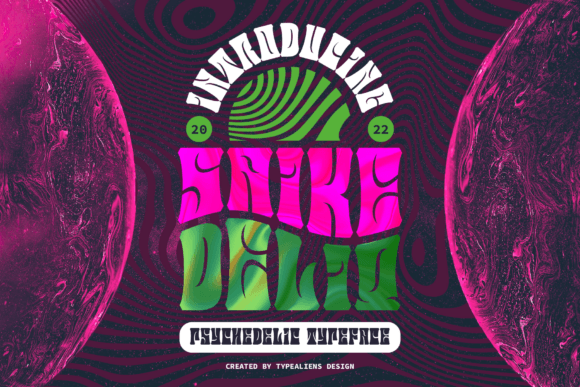
Stand out from the crowd with Saike Deliq, the all-caps display font that oozes psychedelic charm and modern flair. Inspired by the mesmerizing twists and turns of the psychedelic era, this font is a visual masterpiece that commands attention.
Step into a world of vibrant typography where sharp angles meet organic curves, creating a captivating dance of form and color. Saike Deliq's bold strokes and sturdy stance give it a solid foundation, while the psychedelic elements infuse it with a touch of whimsy and intrigue.
Unleash your creativity and let Saike Deliq take center stage in your designs. Whether you're crafting eye-catching music posters, fashion branding, or any project that demands a bold statement, this font is your perfect partner.
Transport your audience to the heart of the psychedelic revolution, where colors collide and shapes morph, creating a sensory experience like no other. Saike Deliq is not just a font; it's a portal to a world of limitless imagination.
Embrace the allure of the unexpected and let Saike Deliq ignite your designs. Dive into a realm where typography becomes art, and every letter tells a story. With its unique character and undeniable charisma, Saike Deliq is the font that will set your projects apart, leaving an indelible mark on your audience's minds.